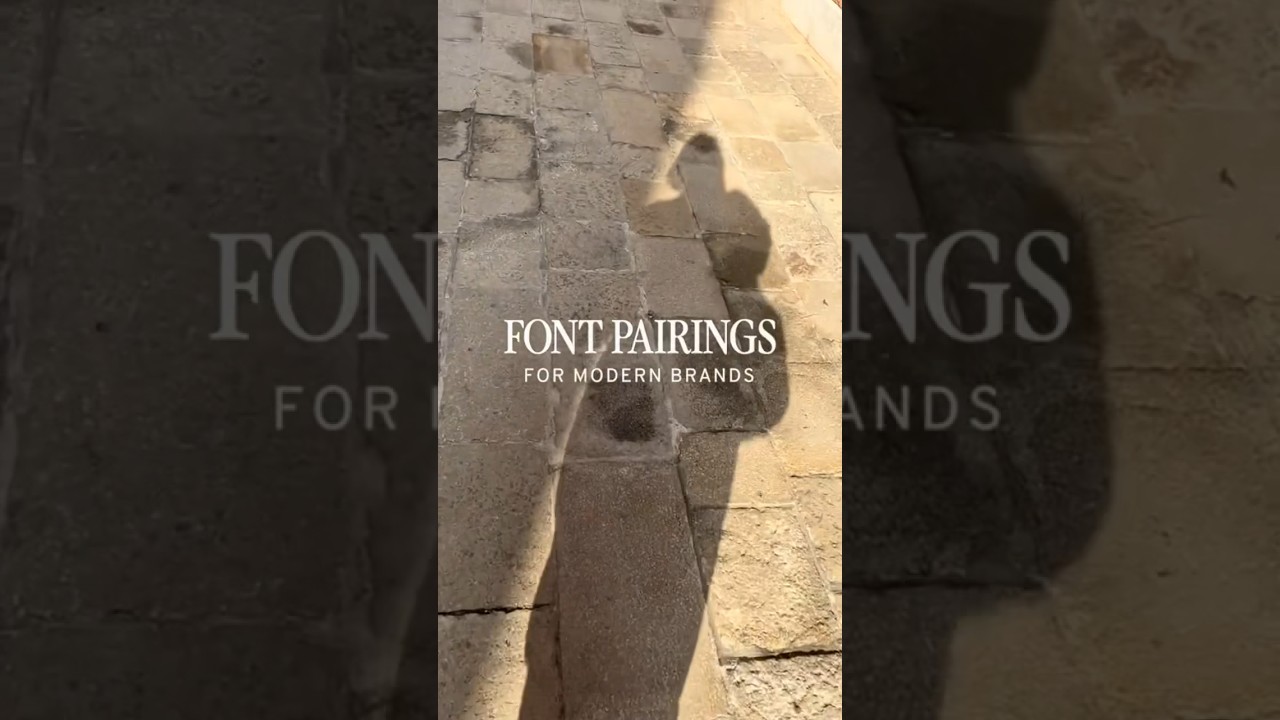
20 Free Font Pairings For Your Brand Ever wonder what font pairings are and how they pertain to your brand? this blog post explains exactly what a font pairing is and when and how you should use them. this post also includes links to download all of them! check them out and read more. What fonts go together? if you're asking that, here we bring you some tips and 20 gorgeous examples to get inspired. start reading!.
20 Free Font Pairings And How They Pertain To Your Brand Font Our ai powered tool helps designers find the perfect typography pairings in seconds. good typography is invisible. great typography makes you want to read. blending contemporary sans serif with timeless elegance. strong headlines paired with clean, readable body text. Explore the best font pairs for modern branding, including where each combination works, where it struggles and what to use instead.